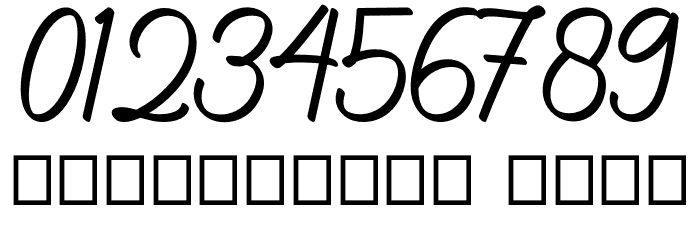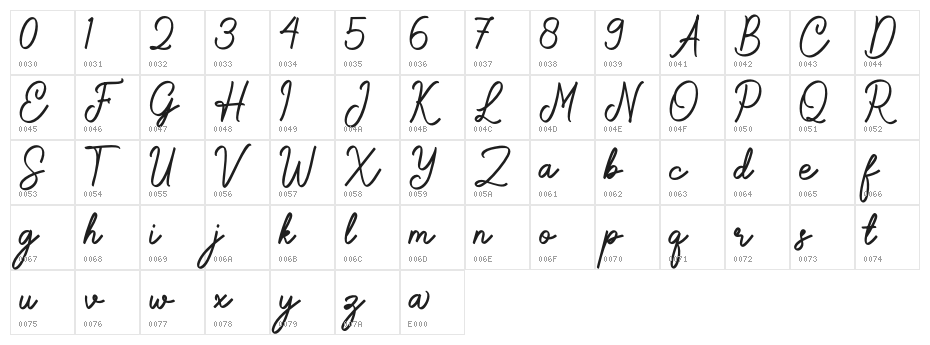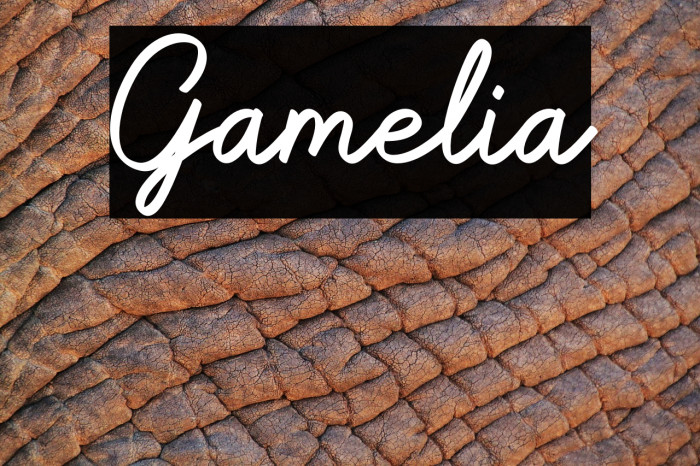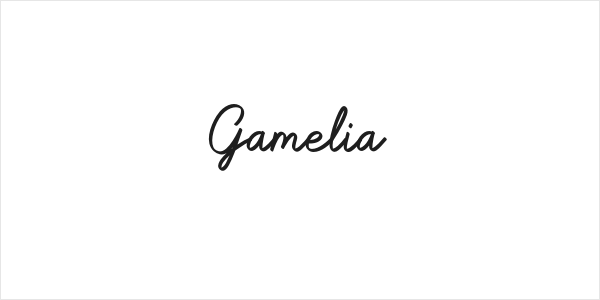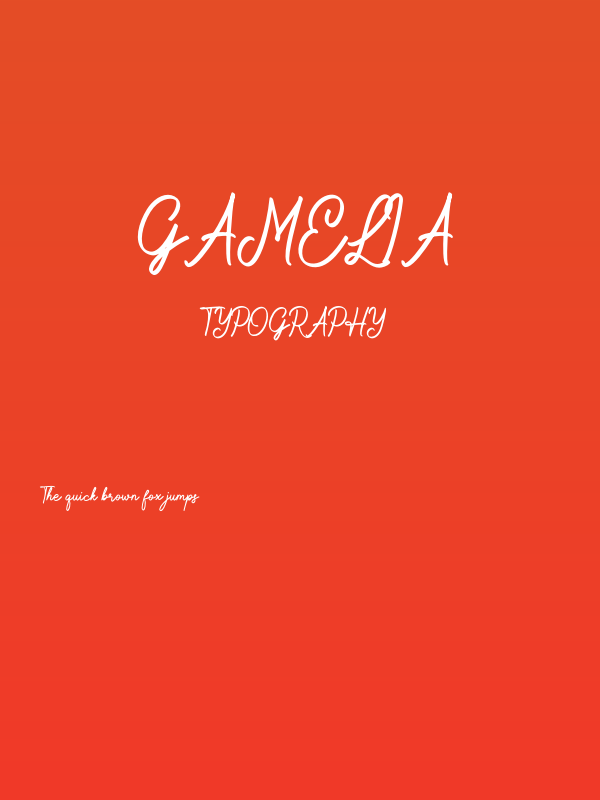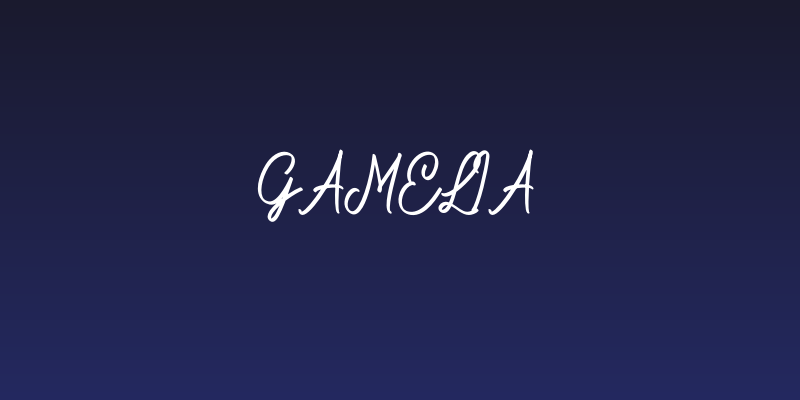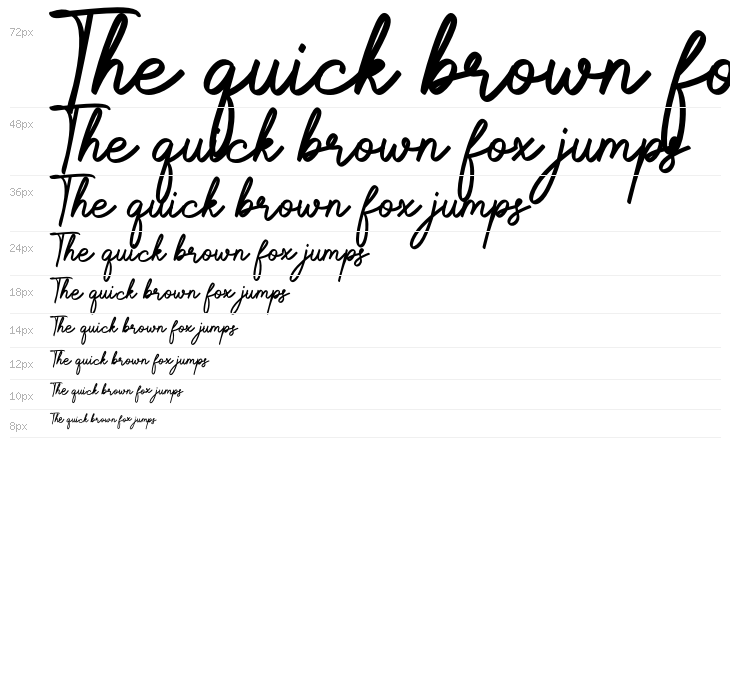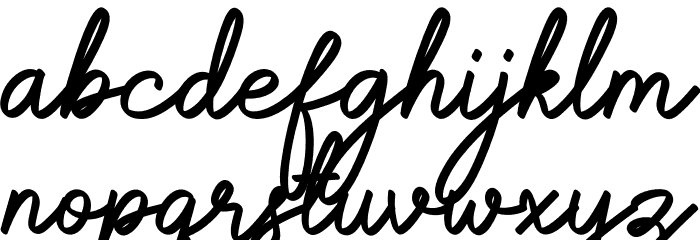
Gamelia Font
Gamelia Description
This font exudes a graceful and flowing script style, characterized by its elegant cursive letters that mimic the fluidity of handwriting. The uppercase letters are slightly more structured, maintaining a consistent height, while the lowercase letters exhibit a charming looped design, enhancing its handwritten appeal. The numerals are clear and maintain the script's fluidity, ensuring readability. The font's overall aesthetic is both sophisticated and approachable, making it versatile for various design needs. Its smooth curves and consistent stroke width contribute to a harmonious appearance, ideal for projects that require a personal touch.
| Proposed Projects | Ideal for wedding invitations, greeting cards, personal branding, and elegant logo designs. |